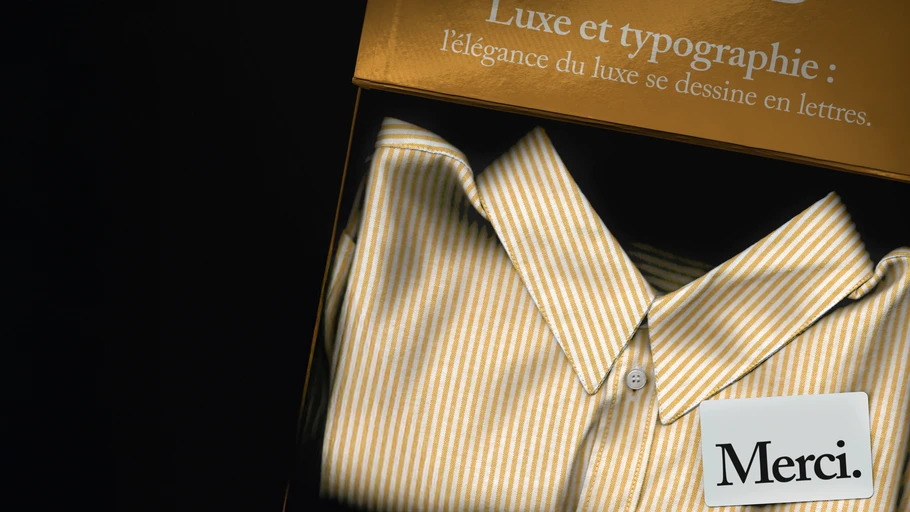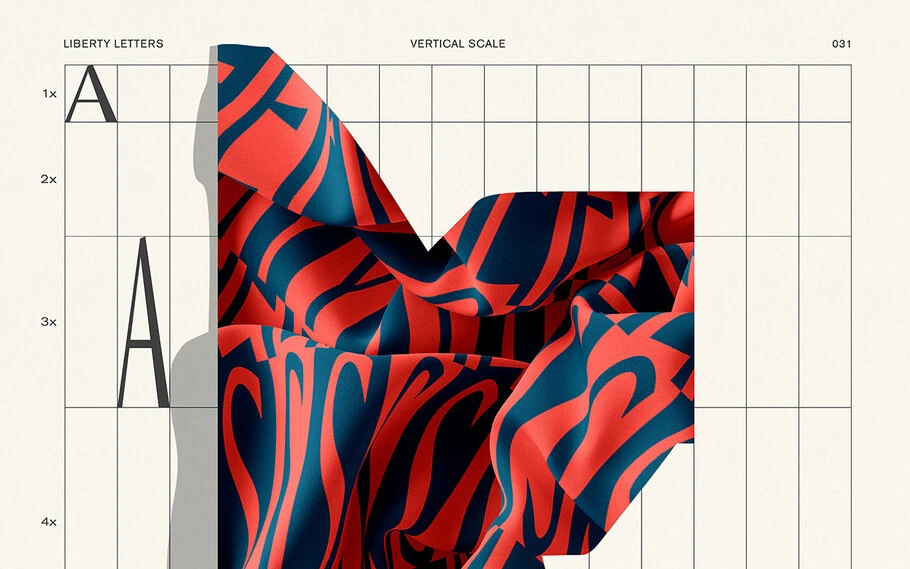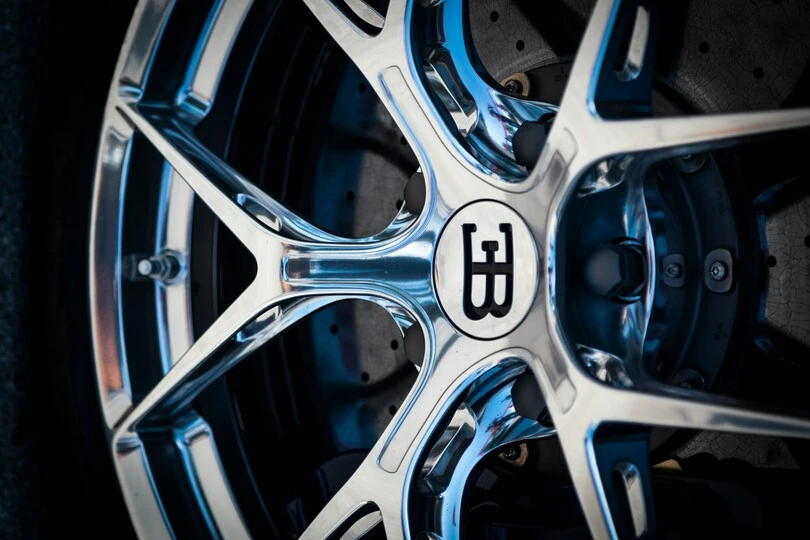
Luxury and typography: Elegance crafted in letters.
“ In the world of luxury, brand identity is a meticulously orchestrated experience where every visual and narrative detail plays a key role in emotional connection with consumers. ”
Elegant luxury typography composition featuring refined letterforms and high-contrast serif fonts.
Some brands instantly make an impression with their distinctive visual identity. The iconic Burberry check, Gucci’s interwoven logo, and Louis Vuitton’s monogrammed suitcases are perfect examples of visual codes that have become timeless.
Typography: A key design element in luxury.
The typefaces or logo designs chosen by luxury houses are never random: they embody their values, history, and vision while reflecting their strategic positioning. Visual norms within the luxury industry are subtle yet refined, evoking timeless elegance, sophistication, and exclusivity. Over time they evolve, influenced by design trends and changing consumer expectations.
Take the geometric sans-serif logos that gained popularity in recent years for example. Brands like Burberry embraced this simplification before recently reverting to their original logo, demonstrating a desire to reconnect with heritage while responding to trends. These oscillations between modernity and tradition highlight the importance of remaining relevant and stylish while asserting uniqueness.
In this arena, standing out visually is essential. Every element, from lettering to logo, must convey a strong and distinctive DNA. A visual identity lacking uniqueness risks diluting the brand’s impact. Luxury houses understand this well: differentiation is not just an advantage — it is a necessity to exist in a saturated market.
Hermès: Balancing tradition and modernity.
Let’s start with Hermès, a brand that perfectly illustrates how lettering and visual identity integrate into a broader strategic vision. Introduced in the 1950s, the brand’s logo draws inspiration from Alfred de Dreux’s painting Le Duc attelé, groom à l’attente. More than just an emblem, it tells a story — one that reflects Hermès’ equestrian heritage through the carriage and horse, symbols of craftsmanship and aristocratic luxury.
When it comes to typography, Hermès has embraced a refined and understated approach. Its clean, minimalist lettering strikes a delicate balance between tradition and modernity. While the brand has historically used Memphis Bold, its website now features typefaces like Orator and Helvetica, reinforcing a timeless and universal aesthetic.
The logo seamlessly fits into a harmonious visual system, complemented by the brand’s iconic brown-edged orange box. This timeless design even earned Hermès the Oscar for Best Packaging in 1994. Today, the house goes a step further, incorporating eco-conscious design into its packaging — demonstrating a commitment to blending luxury with environmental responsibility.
Hermès store front
New Bugatti logo wheel
Bugatti’s progressive luxury.
Bugatti distinguishes itself among brands that have recently excelled in visual identity. The renowned automotive brand has completely redesigned its graphic identity, adopting a sleek design that reflects the innovation and performance at its core.
The introduction of a new, refined typography — created by typographer Thomas Huot-Marchand — draws inspiration from old French street signs and the brand’s photographic archives. A powerful new logo, with pronounced serifs, features a reversed ‘E,’ echoing the founder’s initials. A revamped Bugatti blue palette and a new photographic direction have reinforced Bugatti’s image of technological and timeless luxury. Crafted by design agency Interbrand, the revamp achieved resounding success, earning the prestigious Red Dot Design Award in recognition of excellence across all aspects of design.
This example illustrates how a meticulously crafted visual identity can propel a brand by conveying strong values and a hyper-luxury positioning.
The emotional impact of typography.
In the world of luxury, brand identity is a meticulously orchestrated experience where every visual and narrative detail plays a key role in crafting an emotional connection with consumers. Typographic choices profoundly influence how brands communicate their values of exclusivity, timeless elegance, and innovation.
A study conducted by Monotype and Neurons in 2021-2022 demonstrated that typography acts as a strategic lever in brand perception, directly affecting key attributes such as trust, perceived quality, and innovation.
Heritage and sophistication: Classic serif fonts.
Serif fonts, such as Cotford Display Regular, draw from classical models like Caslon or Baskerville. These fonts, often associated with industries like fashion, luxury, and publishing, evoke a sense of seriousness and timeless sophistication. The study linked this type of typography to a 13% increase in perceived quality and a 9% boost in reliability. This impact stems from their cultural association with traditional elegance and artisanal excellence. Brands like Hermès rely on these visual codes to weave a strong connection between heritage and innovation.
Timeless stories crafting emotions.
Visual identity embodies the soul of luxury, weaving together tradition and modernity. Through subtle typographic choices, timeless graphic codes, and bold collaborations, luxury houses inscribe their uniqueness into eternity.
In a saturated marketplace where identities blend into one another, these brands remind us that standing out is vital. Beyond merely offering products, they craft stories to be lived, emotions to be felt, and dreams to be shared. It is in these narratives, woven from desire and belonging, that the magic of luxury resides.